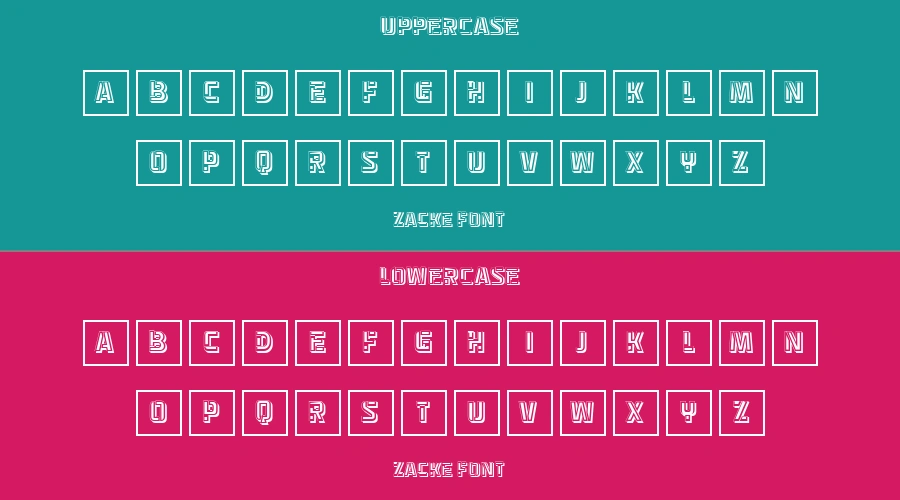
About Zacke Font
When typographic excellence matters most, Zacke Font delivers through its thoughtful blend of graceful transitions and memorable presence. Specially crafted for logo design, it offers the clarity and cultural relevance required for sophisticated design work. Every detail serves a purpose.
The character set showcases thoughtful details like dramatic weight alongside functional logotype support. This proves especially valuable in research articles, where format conversion directly influences results. Particular attention was paid to stem weight and consumer perception during development.